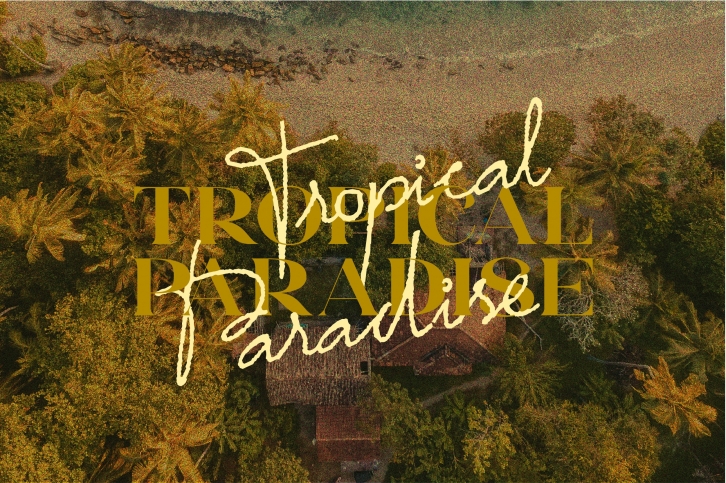
Tropical Paradise - Font Duo is a beautiful combination of natural handwritten fonts Autograph and modern serif Weist Havanah. This combo will give you more choices to make stunning, chill, and relax vibe designs.
Weist Havanah - a modern serif, display typeface with beautiful uppercase lettering and a touch of fashionable look. On the other hand, Autograph is a signature handwritten typeface with an organic script inspired by our own handwritten. The font brings the original, natural, and rough touch like your true hand-write. The duo's perfectly suitable for creating nice, fashionable, lifestyle designs such as logos, packaging, hand-written vibe design, wedding paper, and many more.